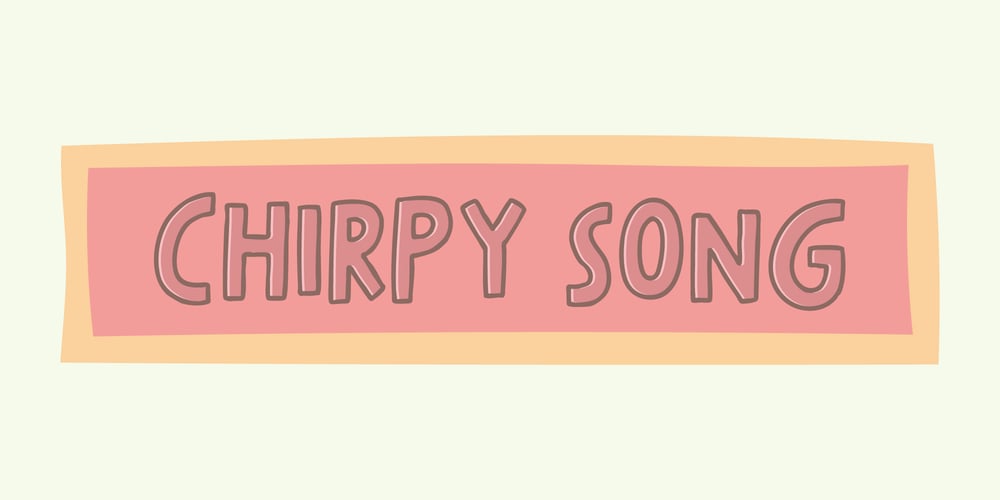
Chirpy Song
Chirpy Song font
Chirpy Song Font Family was designed by Jakob Fischer and published by PizzaDude.dk. Chirpy Song contains 3 styles and family package options. The name of the font is inspired by what Billy Corgan supposedly wrote about the Smashing Pumpkins song “Today”. The font is organic, handmade and slightly loose all-caps, and I have added 5 different versions of each letter, and they automatically changes as you type